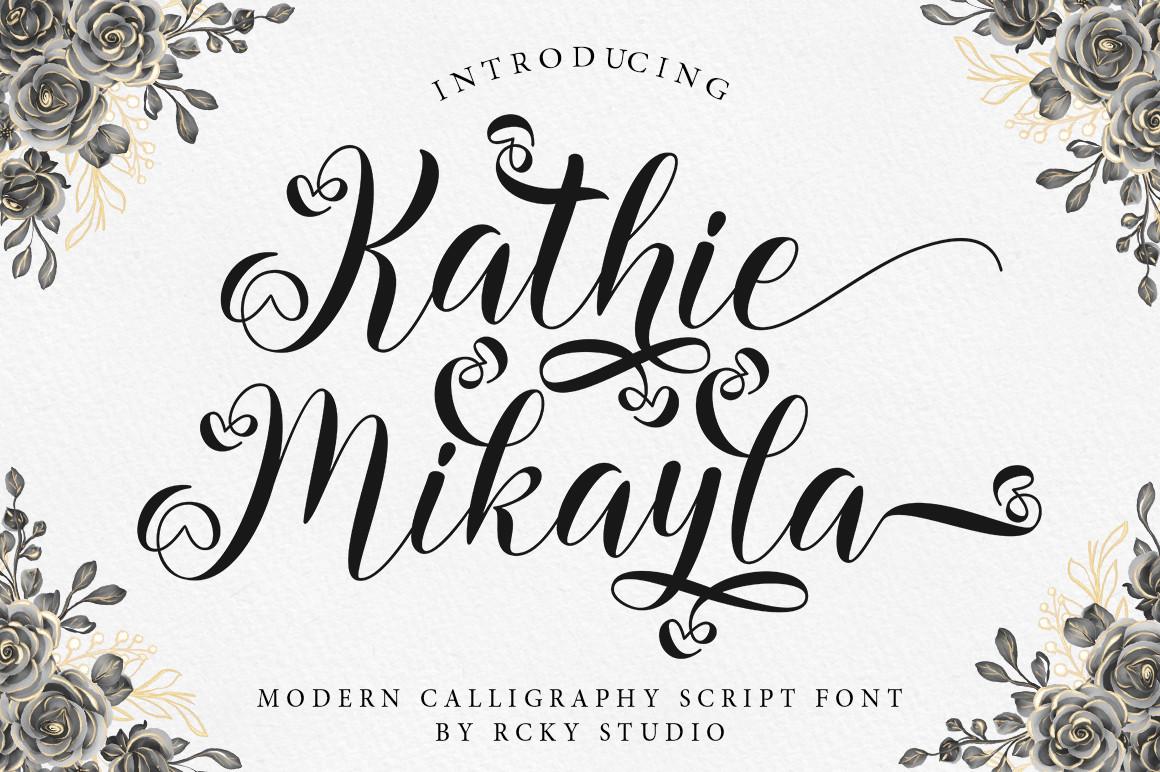
Kathie Mikayla Font Description
Kathie Mikayla is a light, beautiful, and modern handwritten font with a sophisticated flow. This is a versatile font that works in both large and small sizes. Perfect for editorial projects, Logo design, Apparel Branding, product packaging, magazine headers, or simply as a stylish text overlay onto any background image.